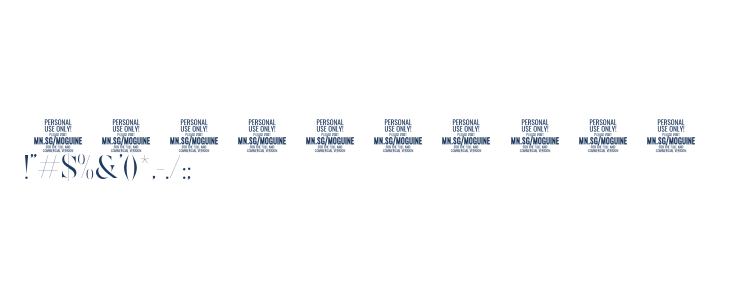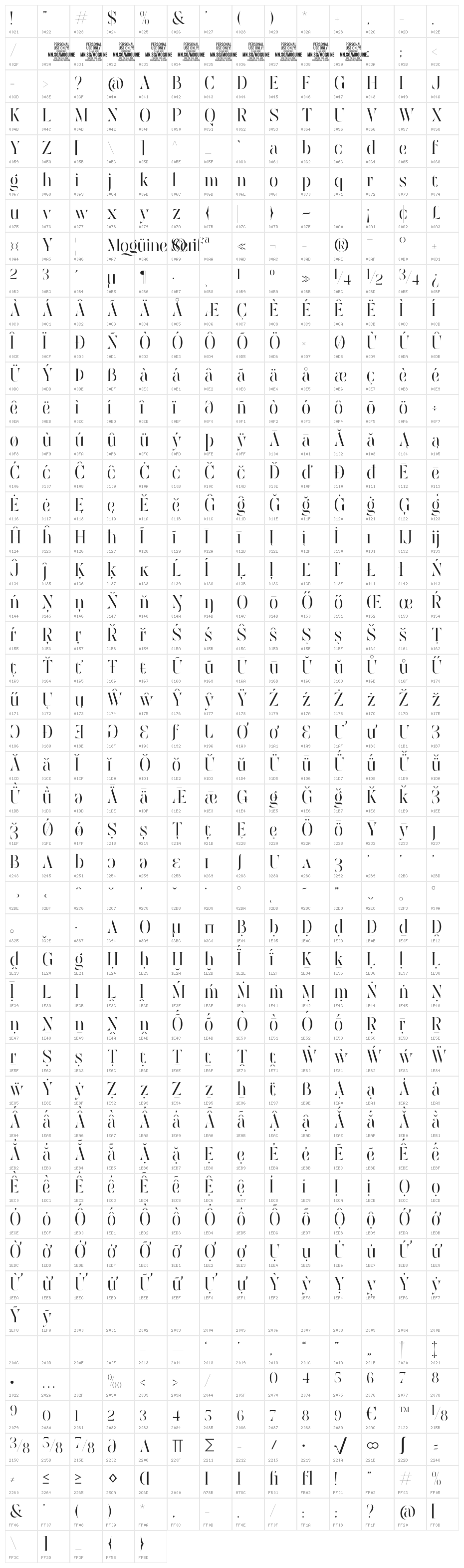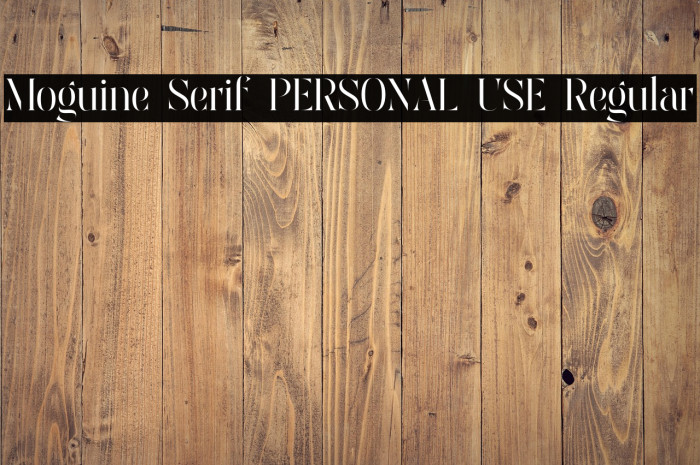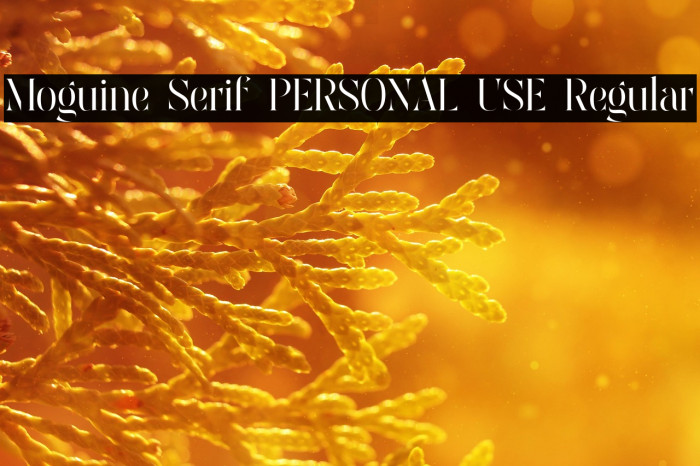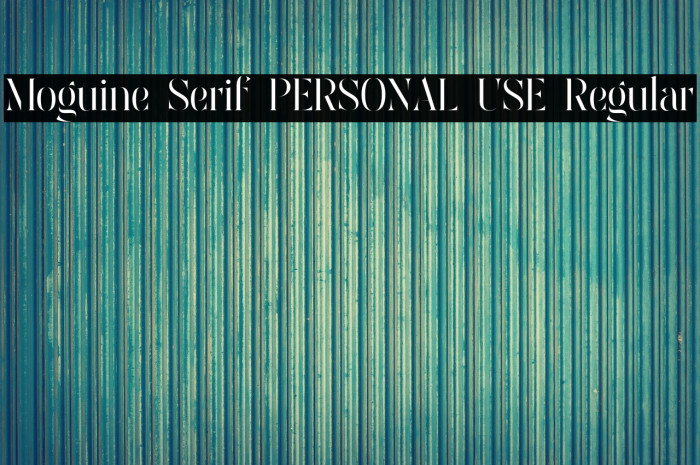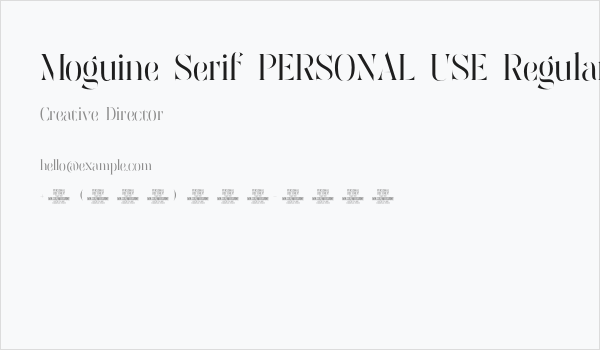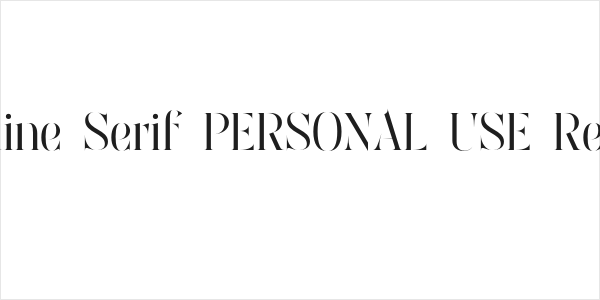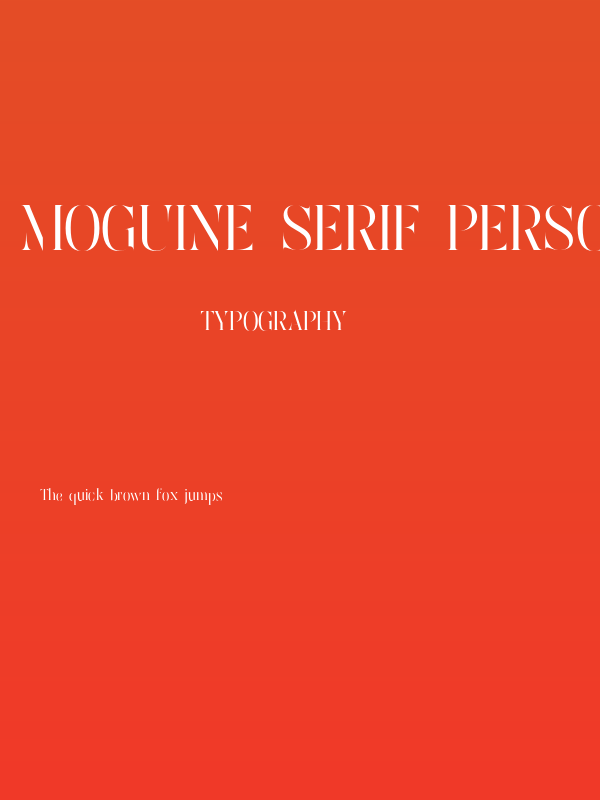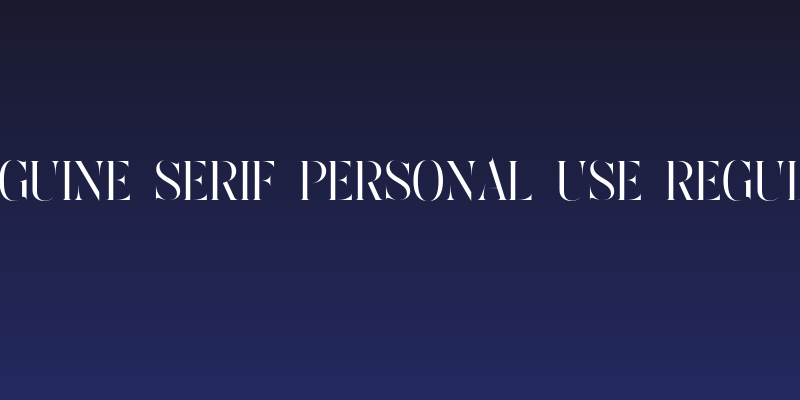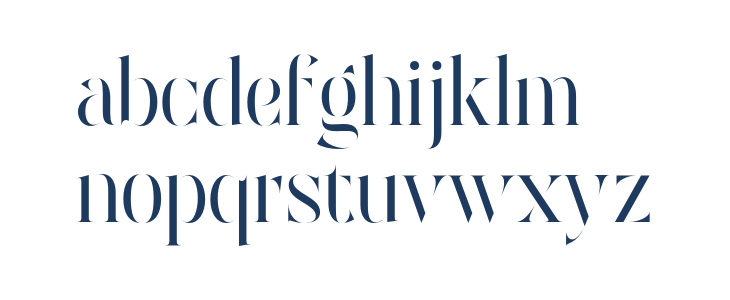
Moguine Serif PERSONAL USE Regular Font
Moguine Serif PERSONAL USE Regular Description
This font features a striking and elegant serif design with high contrast between thick and thin strokes. The uppercase letters are tall and commanding, while the lowercase letters maintain a graceful flow. The sharp serifs and clean lines give it a sophisticated and modern appearance. The numerals and special characters are designed with the same attention to detail, ensuring consistency throughout. This font is ideal for creating a bold statement in any design project, offering a blend of classic serif elegance with a contemporary twist.
| Use Case | Headlines, Logos, Editorial design |
| Proposed Projects | Ideal for luxury branding, editorial design, high-end packaging, and sophisticated invitations. |